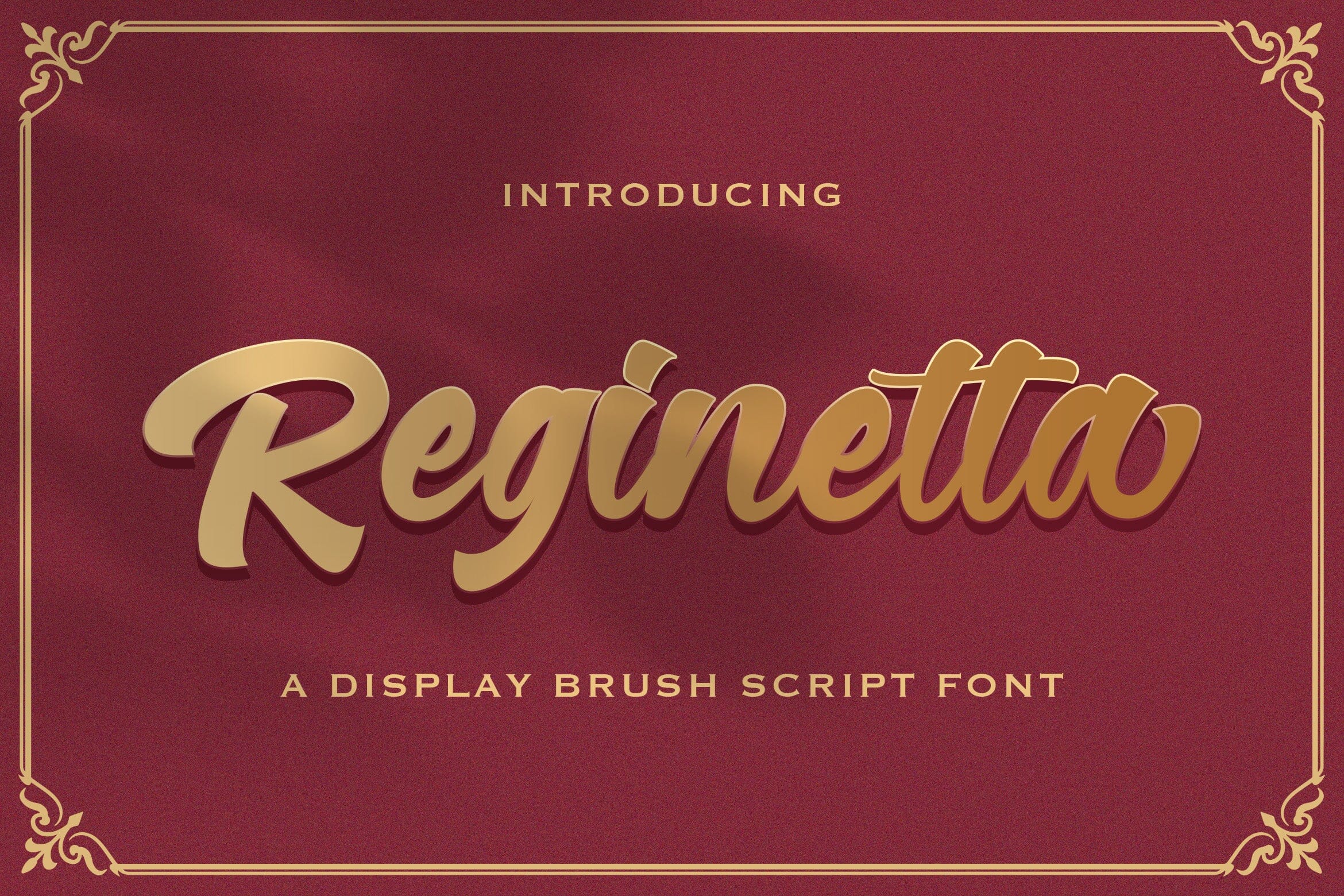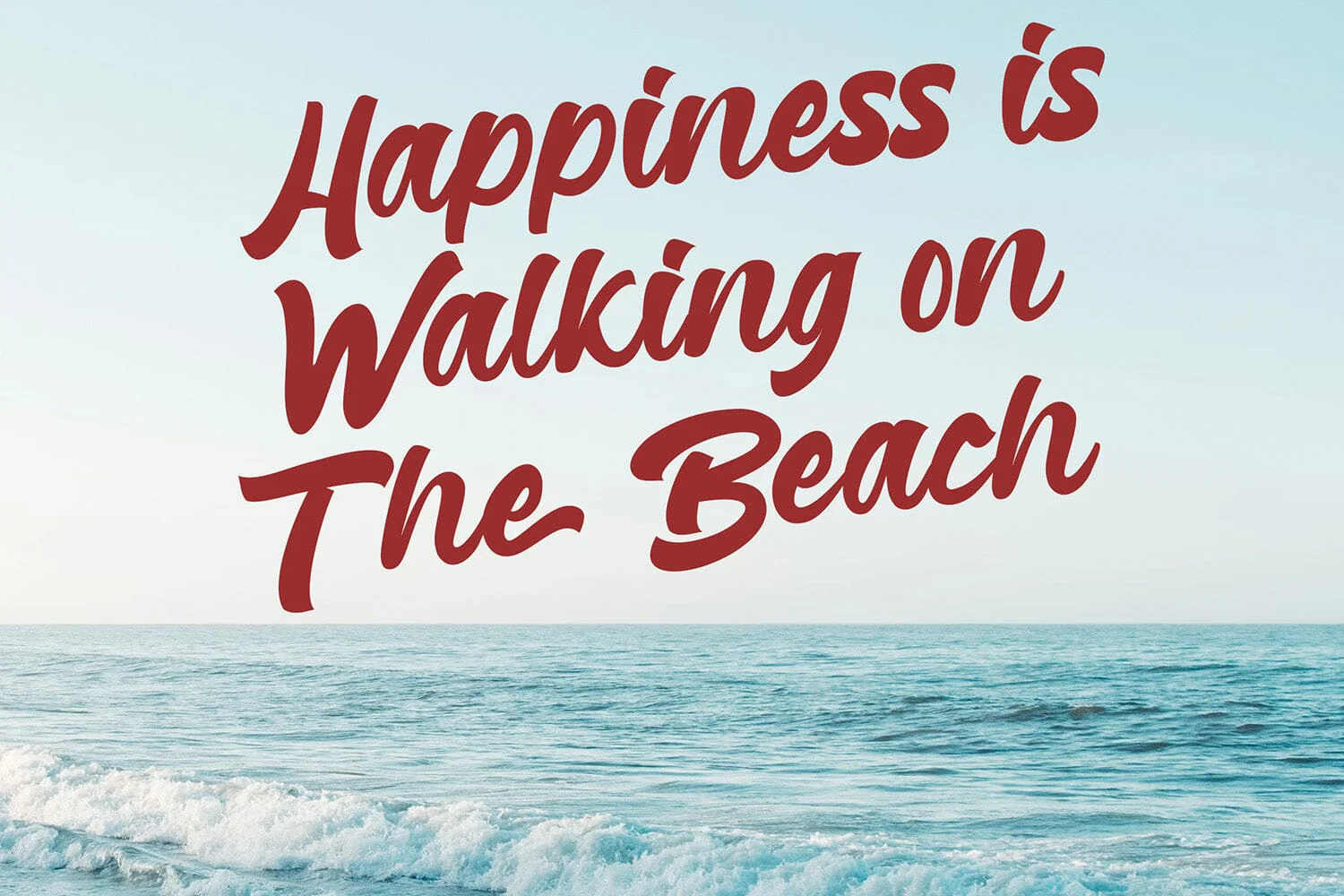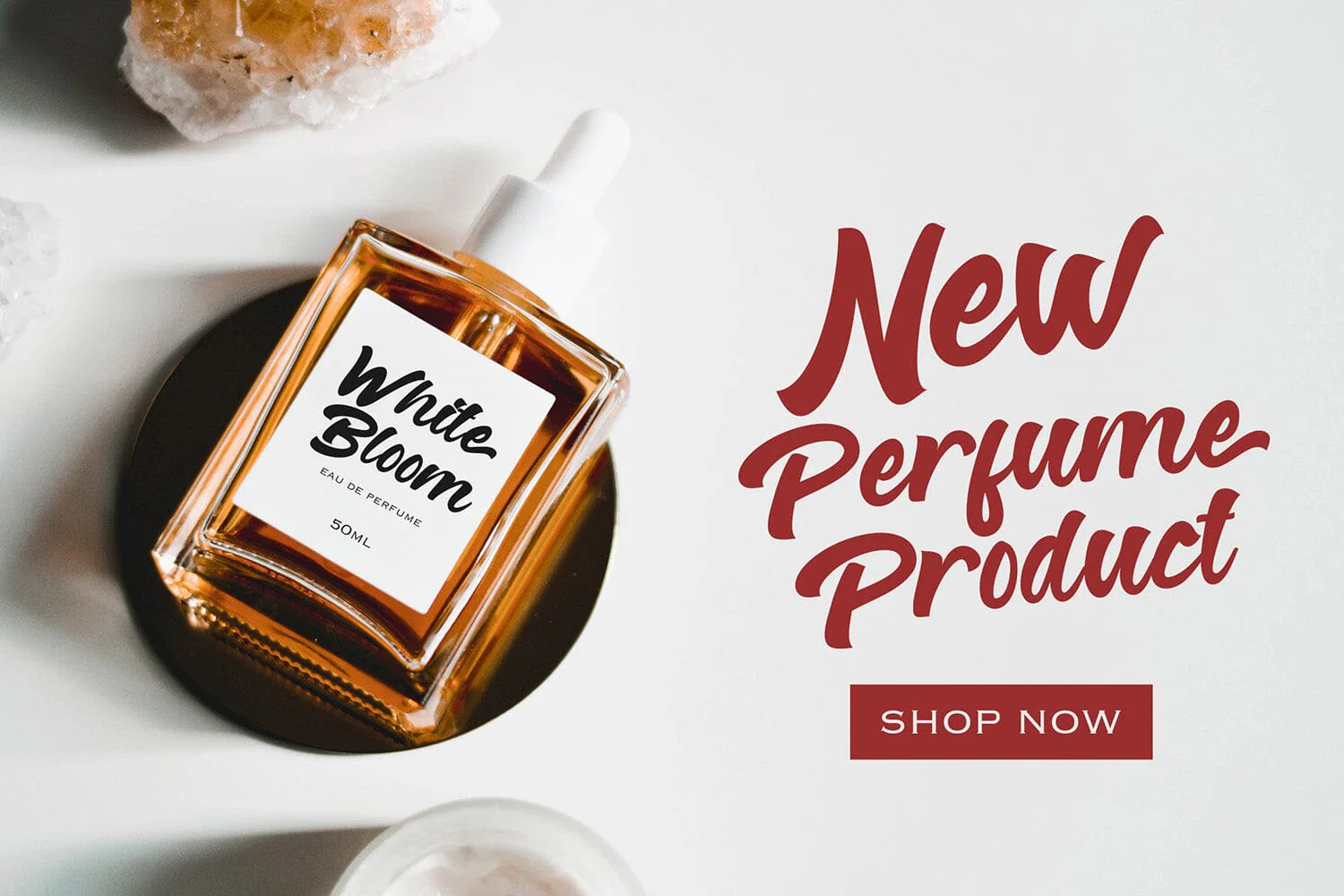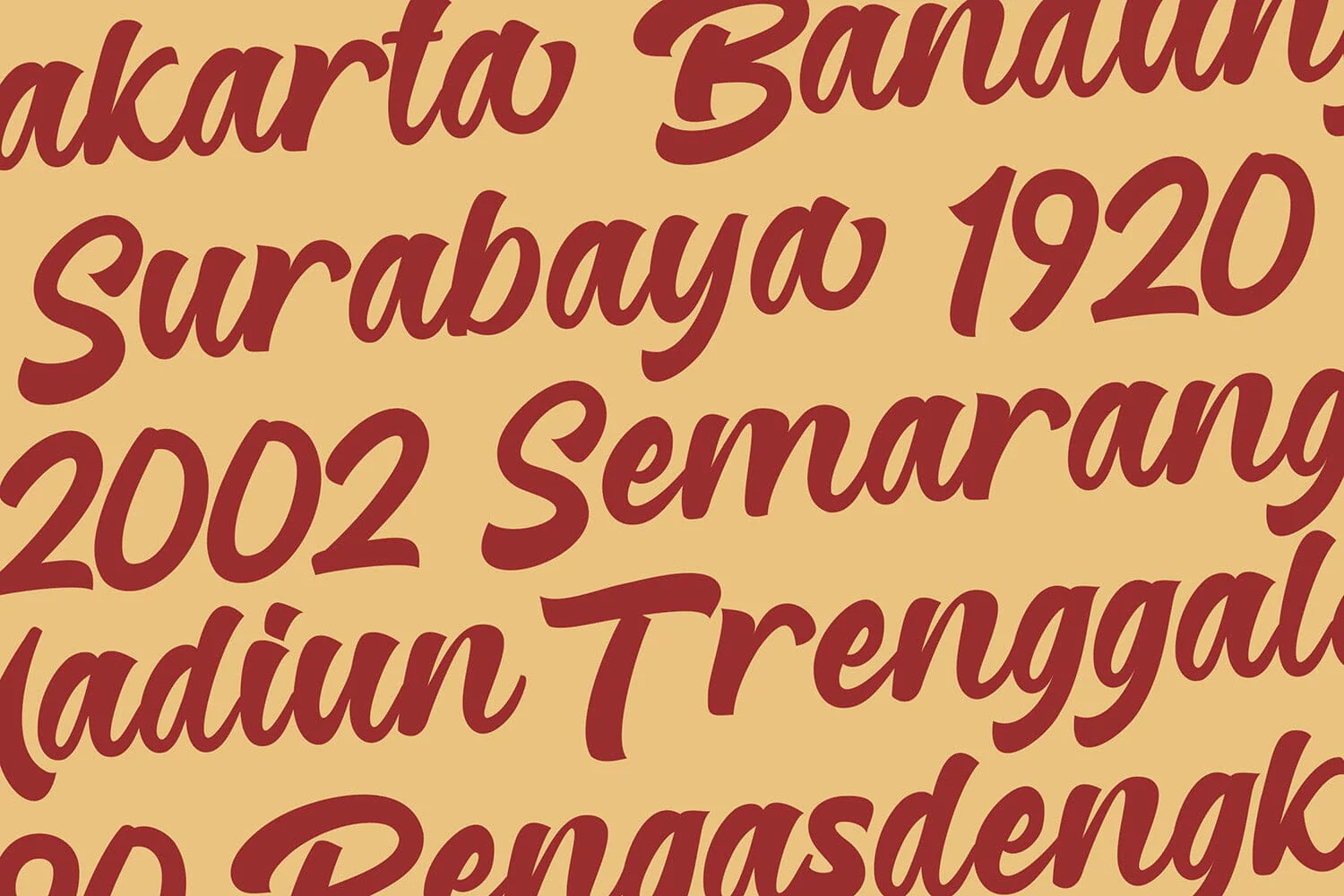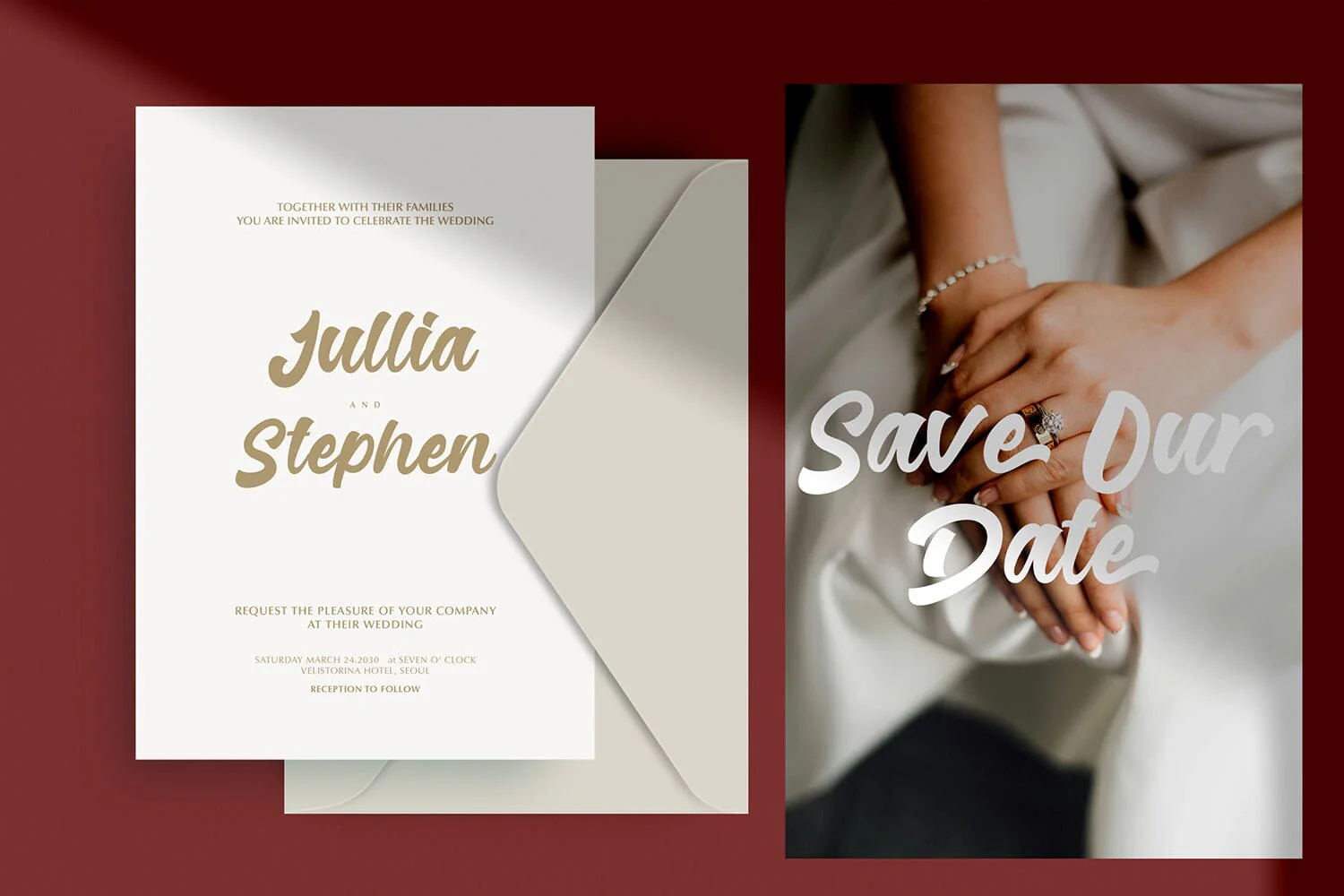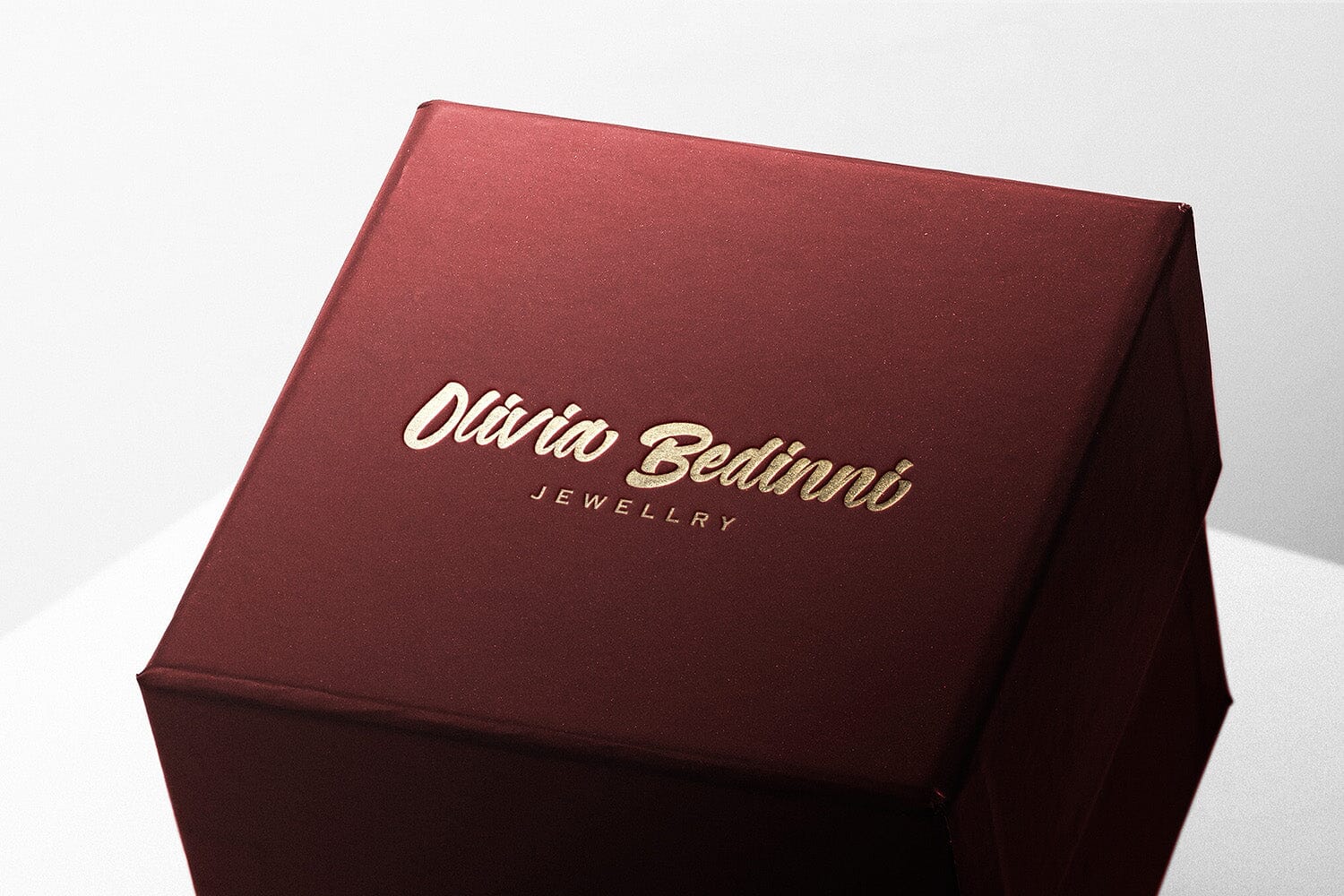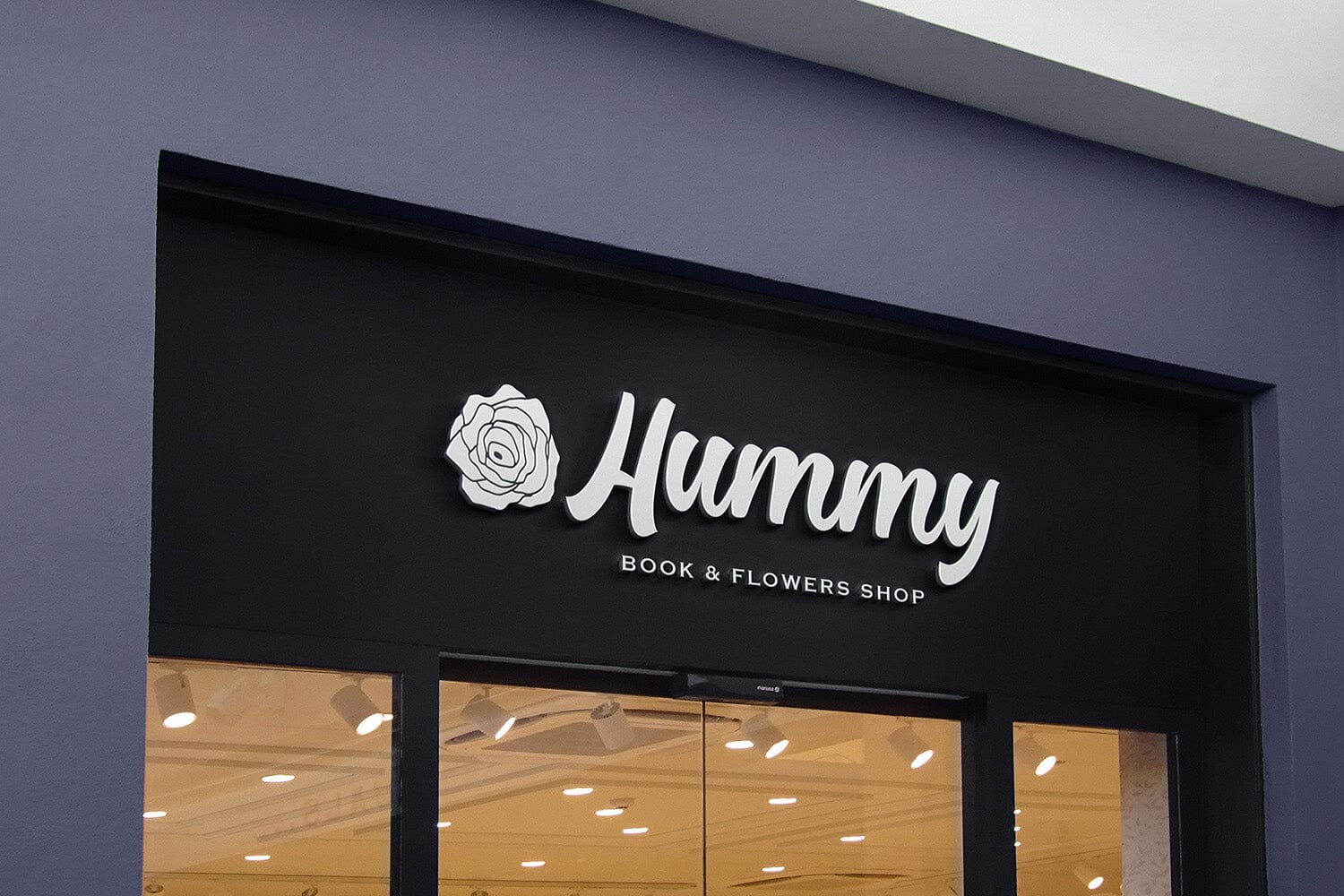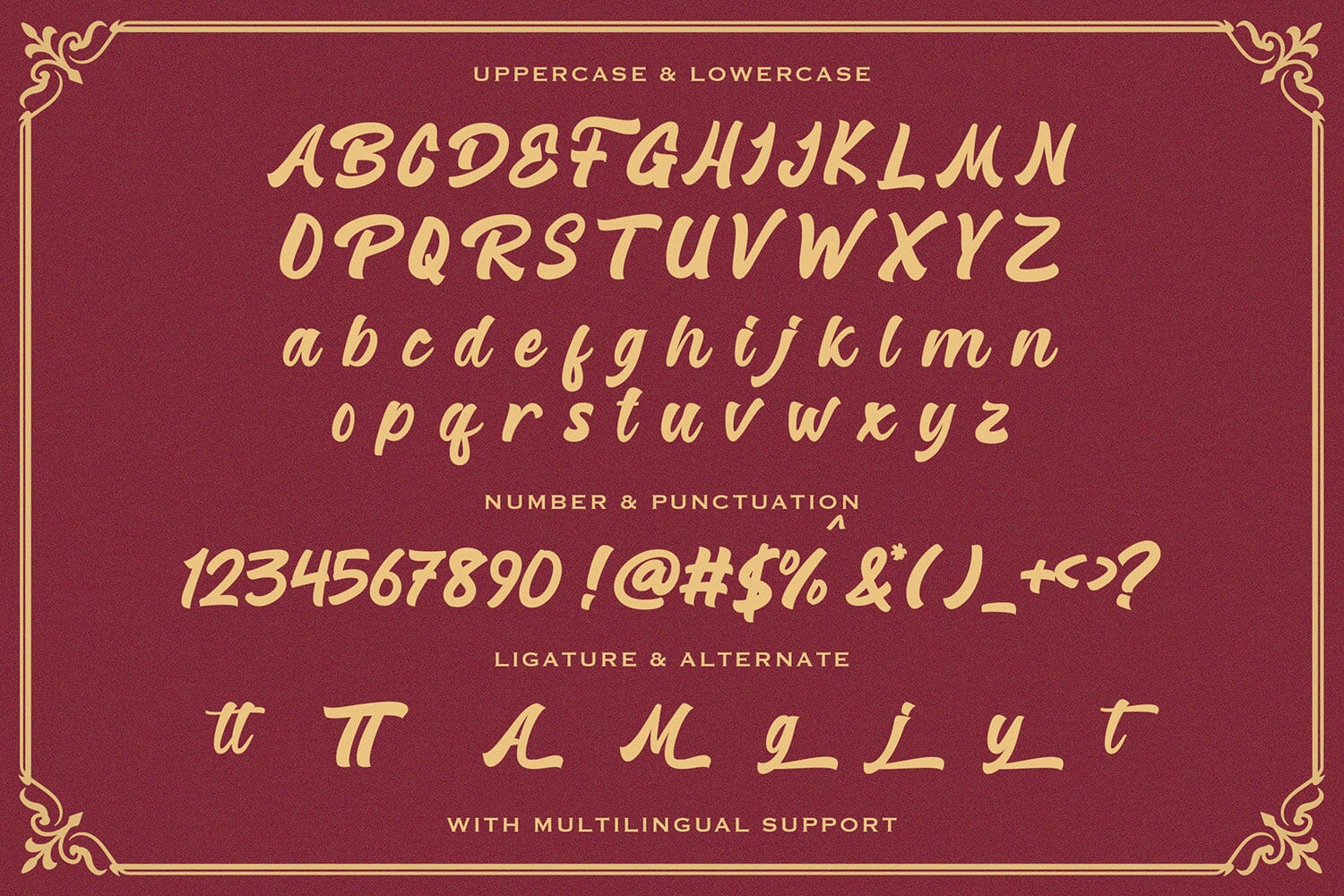
Reginetta - Bold Script Font
Introducing Reginetta - Bold Script Font
Reginetta is a bold script font designed with smooth brush strokes and elegant flowing curves. Its strong handwritten style creates a beautiful balance between boldness and sophistication, making it perfect for eye-catching typography.
This font works great for logos, branding, posters, headlines, packaging, invitations, social media graphics, and creative typography projects. Reginetta delivers a stylish and expressive appearance that adds warmth and personality to any design.
With its graceful brush script character and bold presence, Reginetta helps create visually striking designs while maintaining a smooth and elegant look.